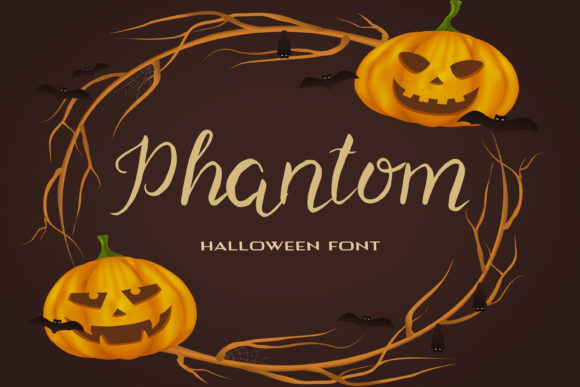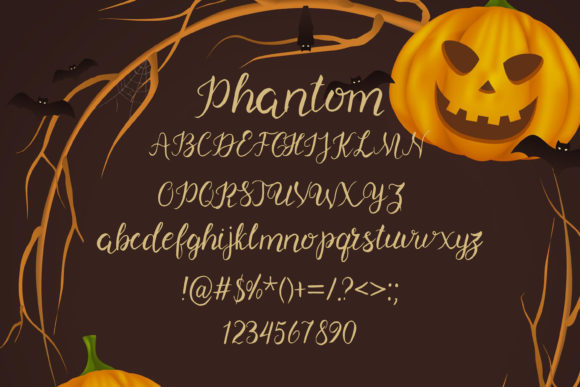
Phantom Font
About Phantom Font
Phantom is a beautiful, delicate and flowing handwritten font. Elegant and distinct, this font will level up each of your crafting ideas.